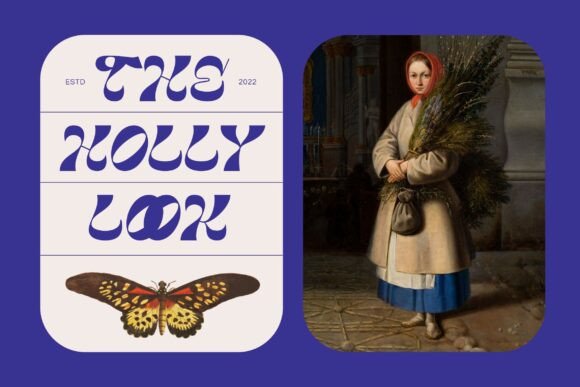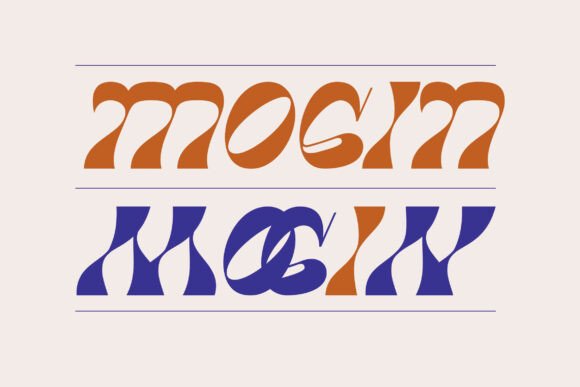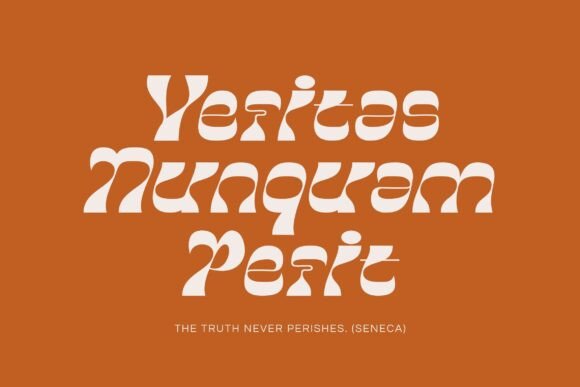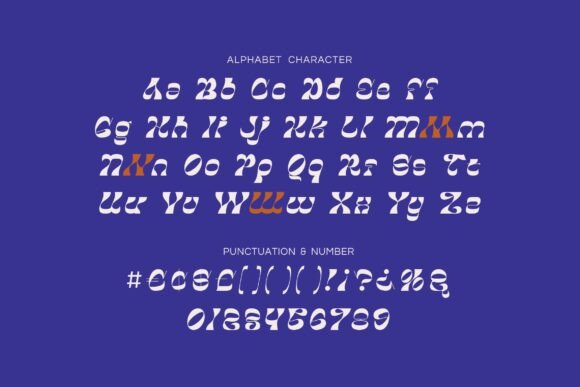
Get Ready to Groove: Introducing the Inoya Font
Have you ever stumbled upon an old vinyl record or a vintage poster and been instantly transported back to a bygone era? That’s exactly the kind of magic the Inoya Font aims to capture. As a designer, you’re always on the lookout for fonts that evoke a sense of nostalgia, while still feeling fresh and modern.
Enter the Inoya Font, a retro-inspired display font that seamlessly blends 70s psychedelic flair with contemporary geometric twists. This font is perfect for designers who want to add a touch of whimsy and personality to their work. With its unique silhouette and playful dance of curves and sharp angles, Inoya is sure to make a statement in any design project.
Inoya Font Key Features
- Unique Characteristics: Inoya Font features a unique blend of traditional and modern design elements, resulting in a distinctive and eye-catching aesthetic.
- Font Family: Inoya Font is part of a larger font family, offering a range of weights and styles to suit different design needs.
- Legibility: Inoya Font is designed for optimal legibility, making it easy to read and understand in a variety of contexts.
Inoya Font Review
As a designer, I was excited to dive into the Inoya Font, and here’s my honest review. ✨ One of the things that works well is its unique and elegant design. The font is perfect for creating a sophisticated and luxurious feel, making it ideal for high-end branding and advertising.
Another great aspect of the Inoya Font is its versatility. It can be used in a variety of contexts, from headings and titles to body text. It’s also highly legible, making it easy to read and understand.
While the Inoya Font has many strengths, there are a few limitations to consider. ⚠️ One of the main issues is its limited character set. The font is not suitable for languages that require a large character set, such as Chinese or Japanese.
Another limitation is the font’s weight. While it’s great for headings and titles, it can be a bit too bold for body text. This can make it difficult to read in large blocks of text.
Overall, the Inoya Font is a great addition to any designer’s toolkit. While it has some limitations, its unique design and versatility make it a valuable asset for creating sophisticated and luxurious designs.
- Unique and elegant design
- Perfect for high-end branding and advertising
- Highly legible
- Versatile
- Limited character set
- Can be too bold for body text
Inoya Font Practical Application Guide
Tips for Getting the Most Out of Inoya Font
For optimal results, use Inoya Font in combination with bold or italic text to create visual contrast and emphasize important information. Experiment with different font sizes and colors to achieve a visually appealing design.
Inoya Font is ideal for creating modern and sleek designs, such as:
– Digital marketing materials (e.g., social media graphics, email templates)
– Print materials (e.g., business cards, brochures)
– Web design elements (e.g., headings, buttons)